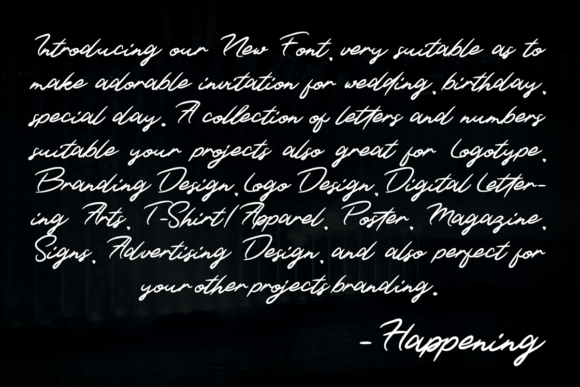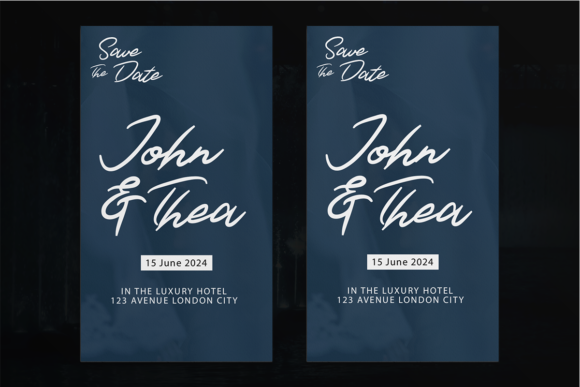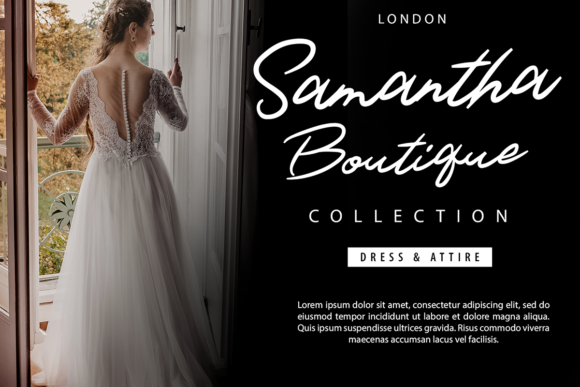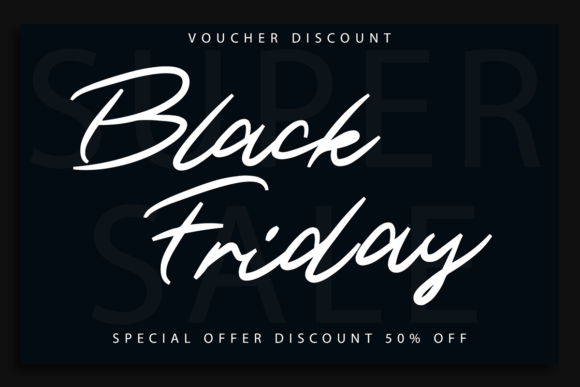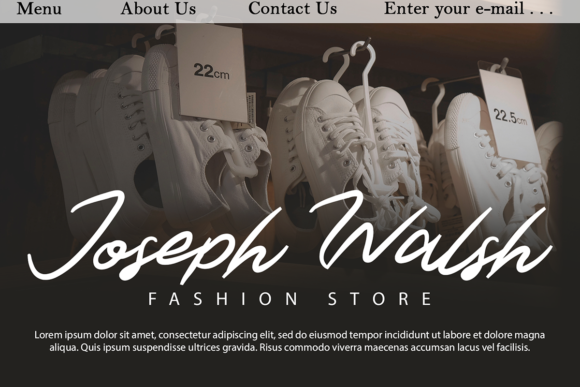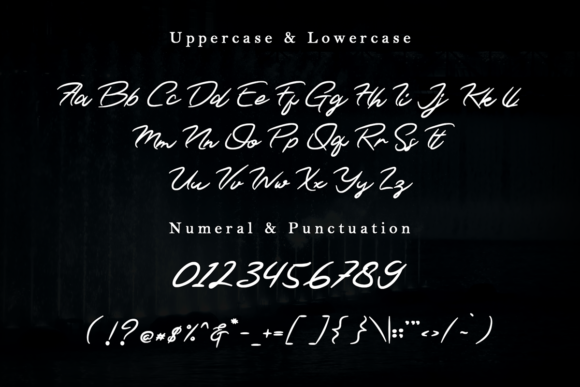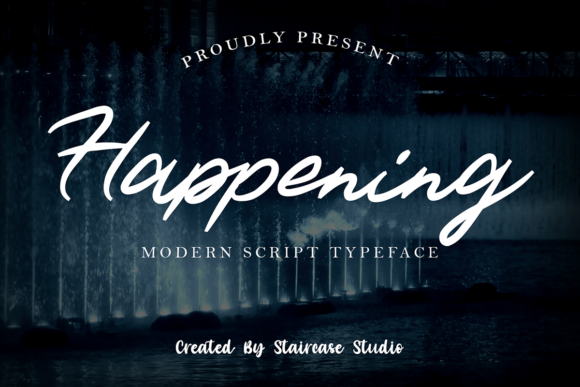
Happening Font: Elevate Your Designs with a Modern Script Style
In the world of typography, fonts play a crucial role in conveying messages, expressing creativity, and setting the tone for a brand or project. For designers and crafters looking for a modern script font that can elevate their work, Happening Font is an excellent choice. This versatile and stylish font is perfect for a wide range of applications, from logotypes and branding design to digital lettering arts, apparel, and more.
What is Happening Font?
Happening Font is a contemporary script font designed to bring a touch of elegance and sophistication to any project. This collection of letters and numbers is carefully crafted to provide a unique and stylish look that can help you stand out from the crowd. Whether you’re working on a logo design, branding project, or simply looking for a font to add some flair to your digital artwork, Happening Font is an excellent option.
Key Features of Happening Font
- Modern Script Style: Happening Font boasts a modern script style that is both elegant and trendy, making it perfect for designers and crafters looking for a font that can add a touch of sophistication to their work.
- Versatile: This font is incredibly versatile and can be used for a wide range of projects, including logotypes, branding design, logo design, digital lettering arts, t-shirt/apparel, poster, magazine, signs, advertising design, and more.
- Easy to Read: Despite its stylish and cursive nature, Happening Font is easy to read, making it perfect for body text and headlines.
- High-Quality: Happening Font is a high-quality font that is designed to provide a crisp and clear look, even at small sizes.
Use Cases for Happening Font
Happening Font is an incredibly versatile font that can be used for a wide range of projects. Here are some use cases to get you started:
- Logotype and Branding Design: Use Happening Font to create a unique and memorable logotype that reflects your brand’s personality and style.
- Logo Design: Create a stunning logo that stands out from the crowd with Happening Font.
- Digital Lettering Arts: Add a touch of elegance and sophistication to your digital lettering arts with Happening Font.
- T-Shirt/Apparel Design: Use Happening Font to create stylish and trendy t-shirt and apparel designs.
- Poster and Magazine Design: Add a touch of modernity and sophistication to your poster and magazine designs with Happening Font.
- Signs and Advertising Design: Use Happening Font to create eye-catching signs and advertising designs that grab attention.
Why Choose Happening Font?
With so many fonts available, why choose Happening Font? Here are a few reasons why:
- Unique and Stylish: Happening Font offers a unique and stylish look that can help you stand out from the crowd.
- Highly Versatile: This font is incredibly versatile and can be used for a wide range of projects.
- Easy to Read: Despite its stylish and cursive nature, Happening Font is easy to read, making it perfect for body text and headlines.
- Professional Quality: Happening Font is a high-quality font that is designed to provide a crisp and clear look, even at small sizes.
In conclusion, Happening Font is an excellent choice for designers and crafters looking for a modern script font that can elevate their work. With its unique and stylish look, high versatility, and professional quality, Happening Font is perfect for a wide range of projects, from logotypes and branding design to digital lettering arts, apparel, and more. So why wait? Download Happening Font today and take your designs to the next level!